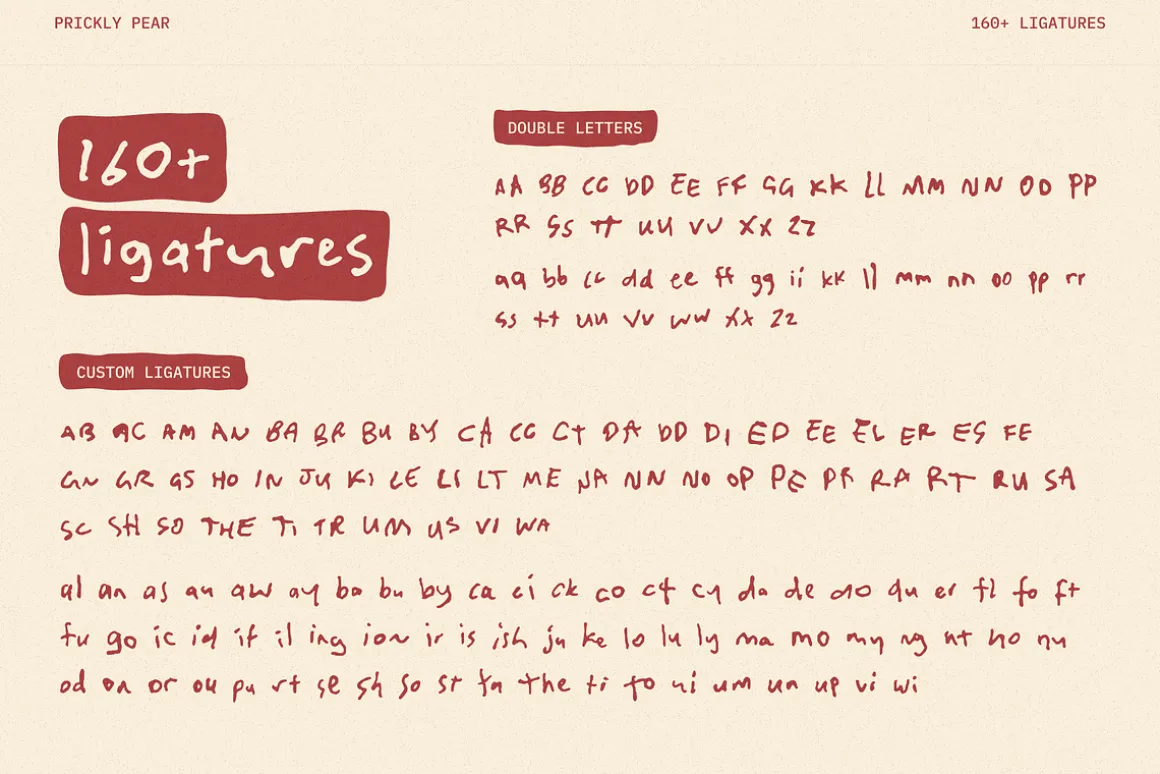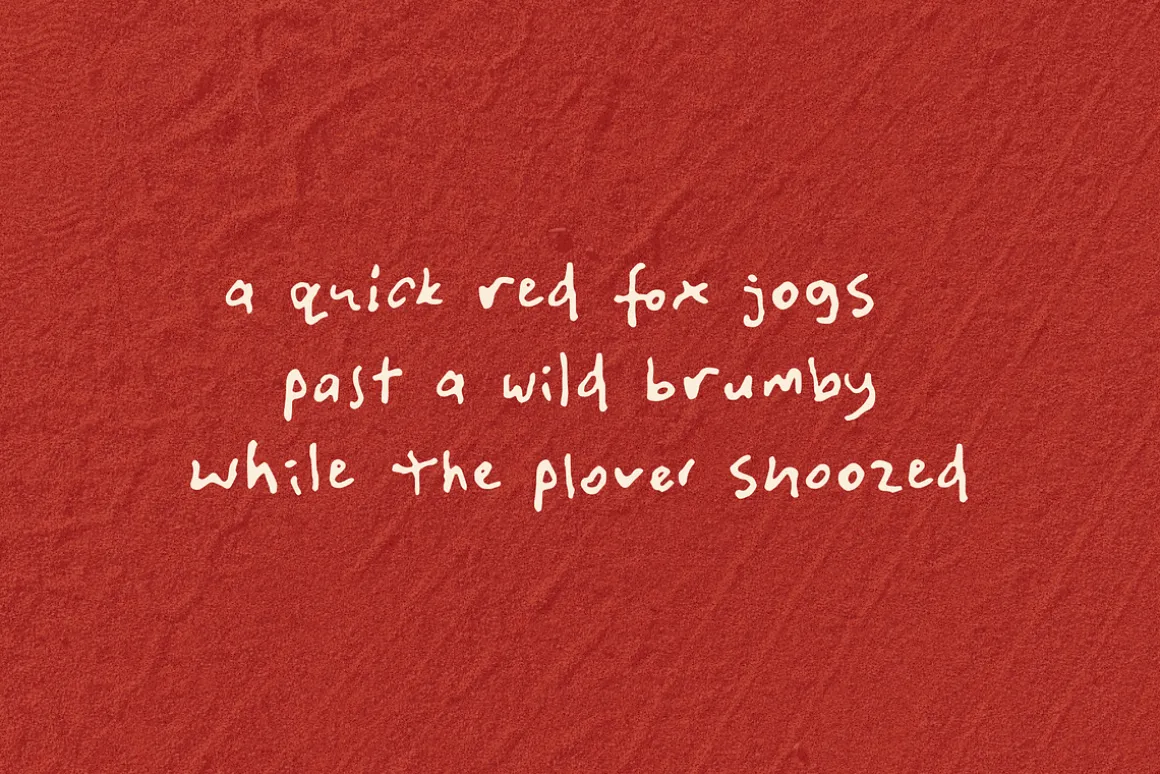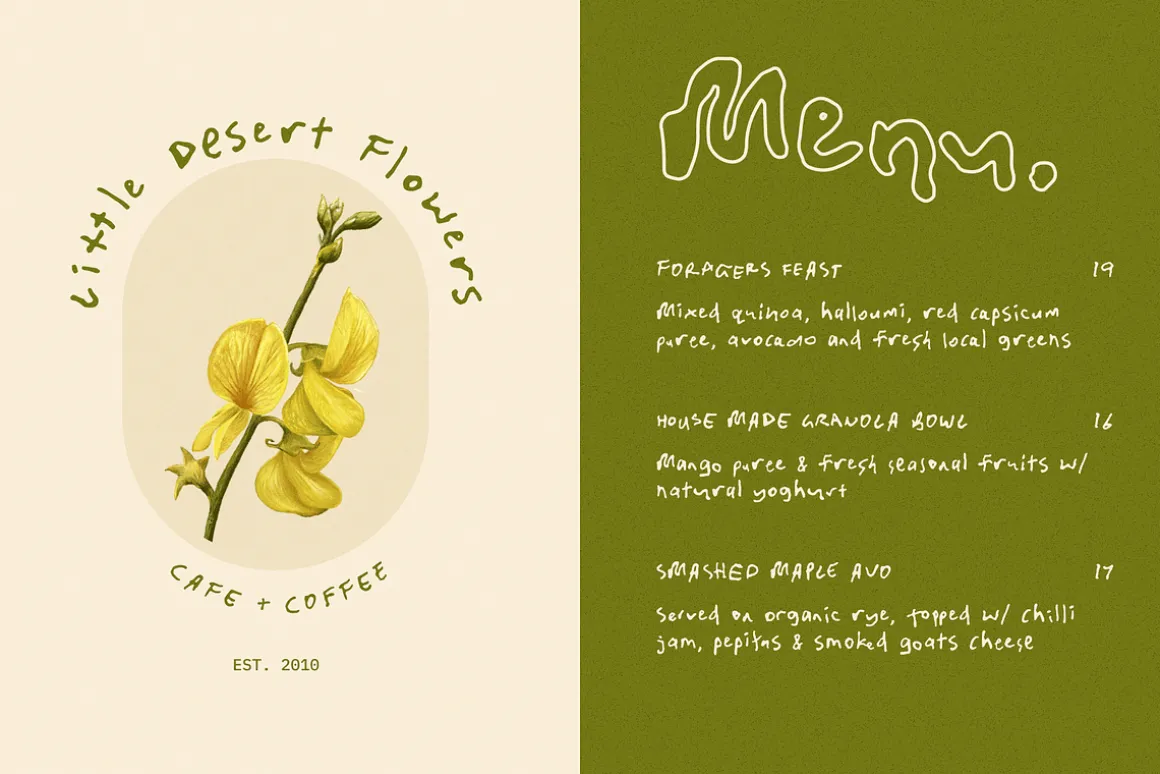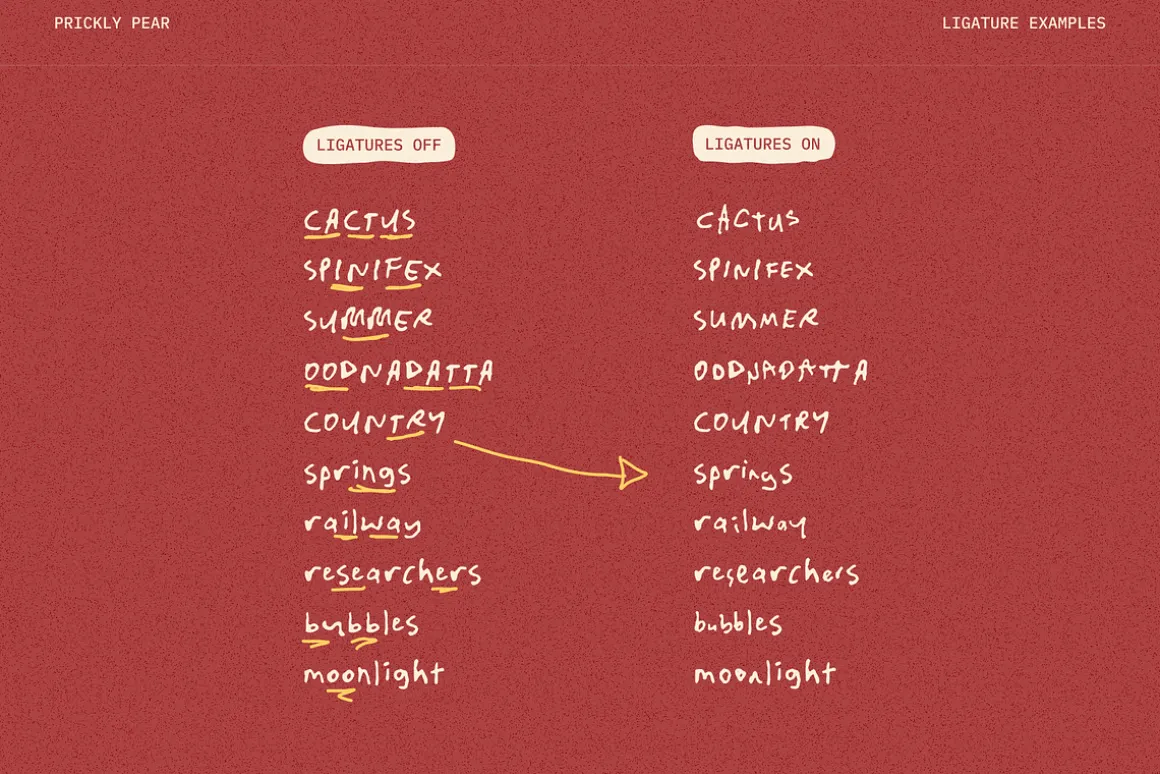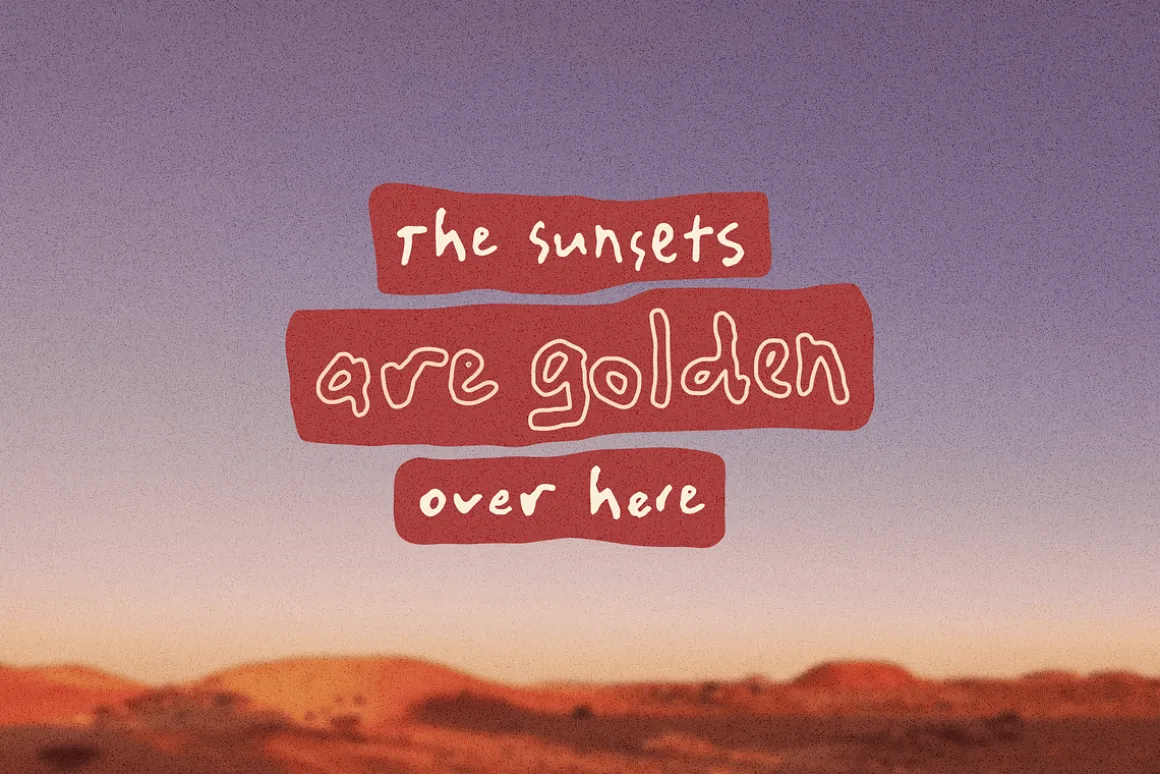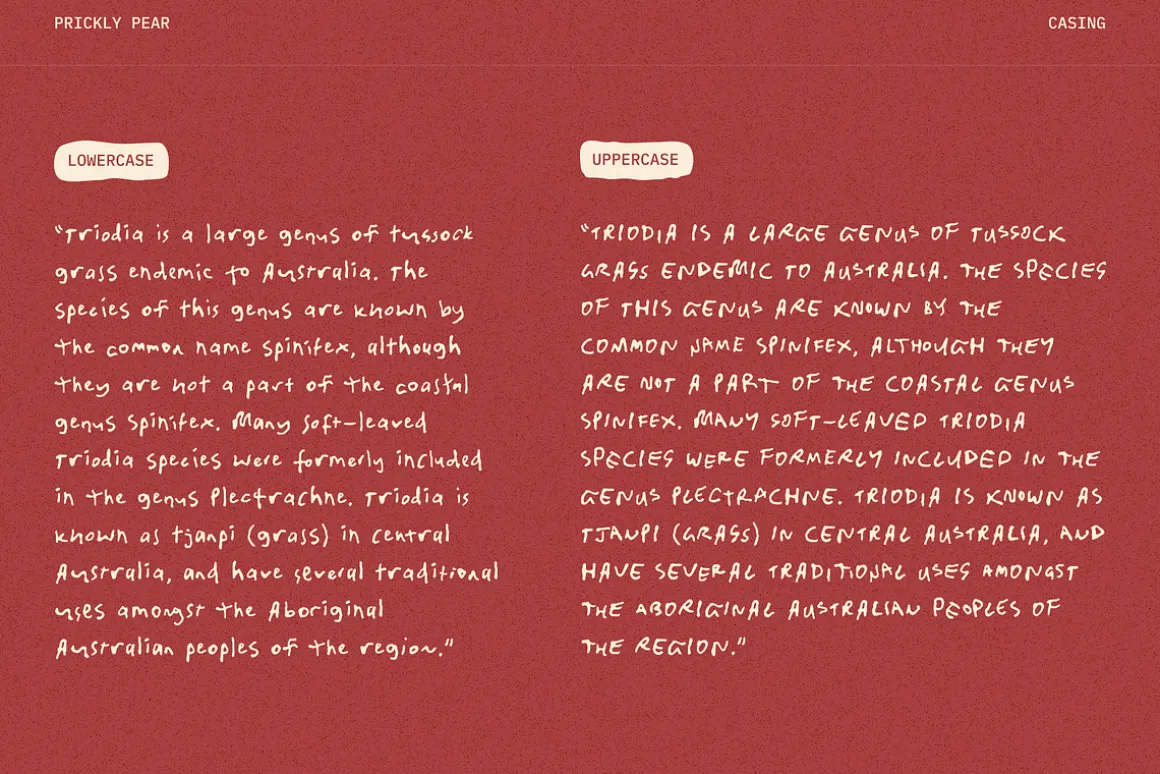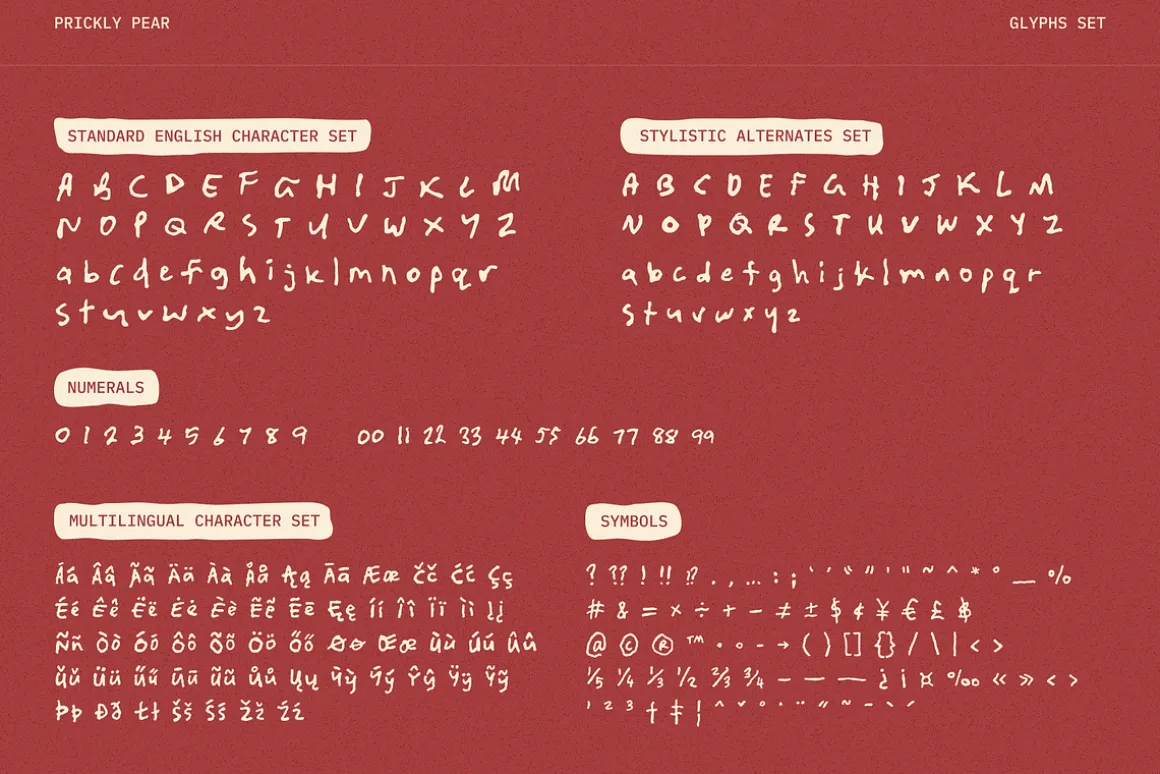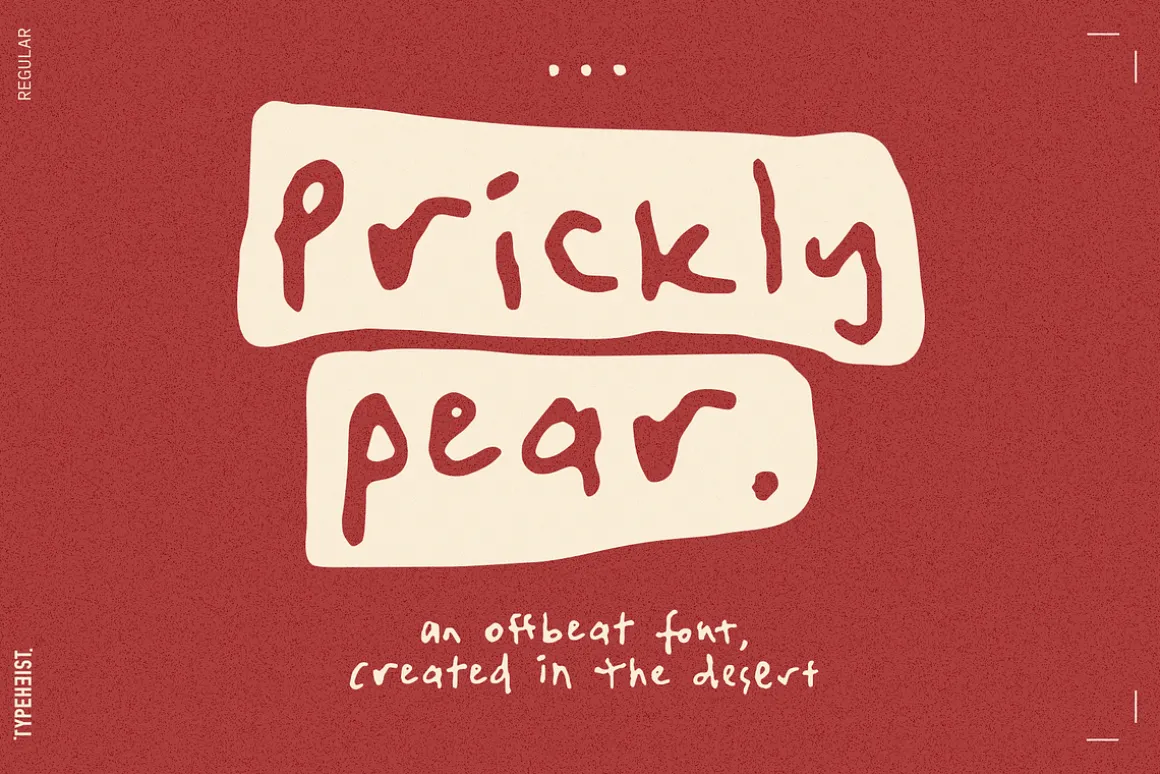
Here’s a font with a special backstory. Prickly Pear is a handwritten font, created in a moving car, on the way to the Simpson Desert.
At the mercy of every bump, hump and hole in the road, this font is as rough and realistic as its conception. A unique and messy handwriting font reminiscent of the rugged landscape; it’ll be perfect for that design project where you need a little raw authenticity.
Prickly Pear has a comprehensive character set of over 160 custom ligature combinations and 56 multi-lingual characters.
Prickly Pear Regular
- 510+ total glyphs (including 160+ custom ligatures)
- Standard english characters
- Accented multi-lingual characters (Latin-1)